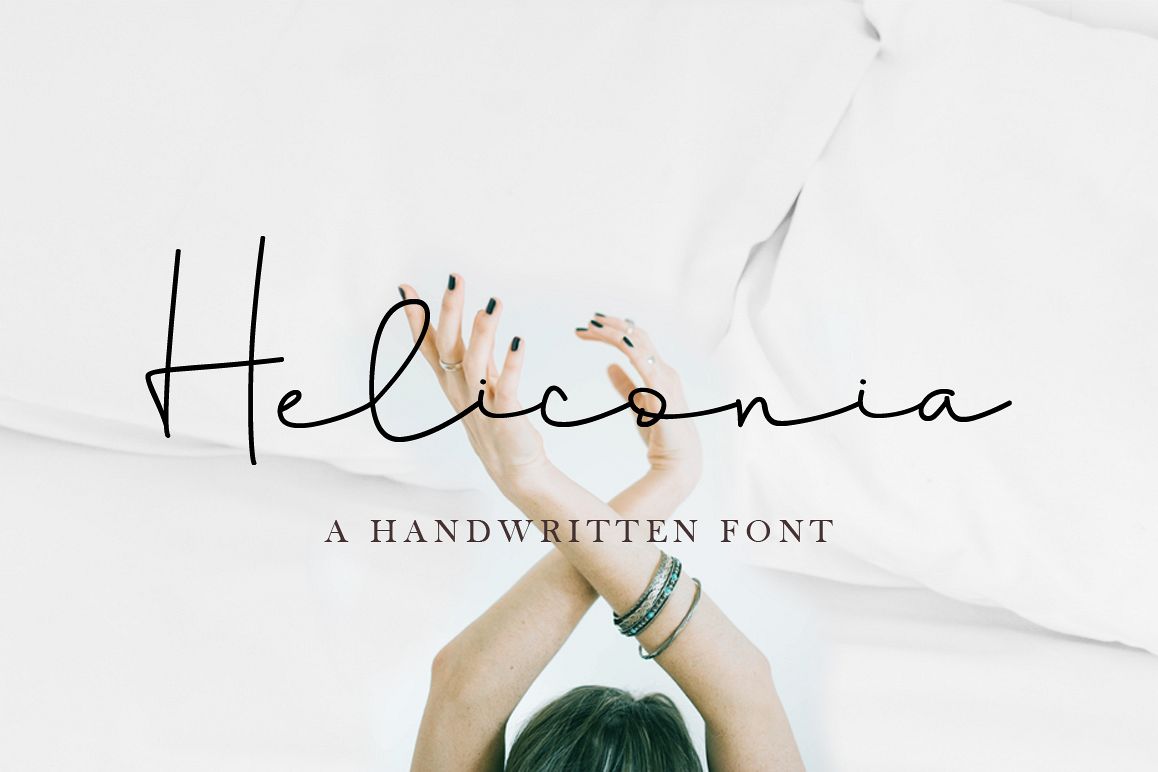
Heliconia Script Font
Heliconia-Regular
Heliconia Script Font is a
modern and elegant style handwritten font. It contains uppercase,
lowercase, number, Ligatures, punctuation and symbols. Heliconia is perfect for
branding, logos, wedding designs, greeting cards, photography,
inspirational quotes, illustration, magazine, advertisements,
invitations, product designs, labels, promotional material, handwritten
quotes, product packaging, stationery, social media posts, invitation,
and more.